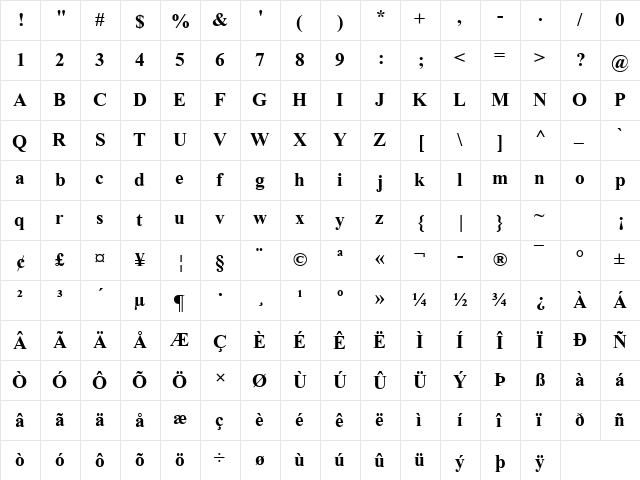
Aparajita Bold
Design Context for Aparajita Typeface
Aparajita takes a measured approach to typography — its balanced proportions and neutral character make it a reliable workhorse for both digital and print work. The heavy weight commands attention and anchors typographic hierarchies.